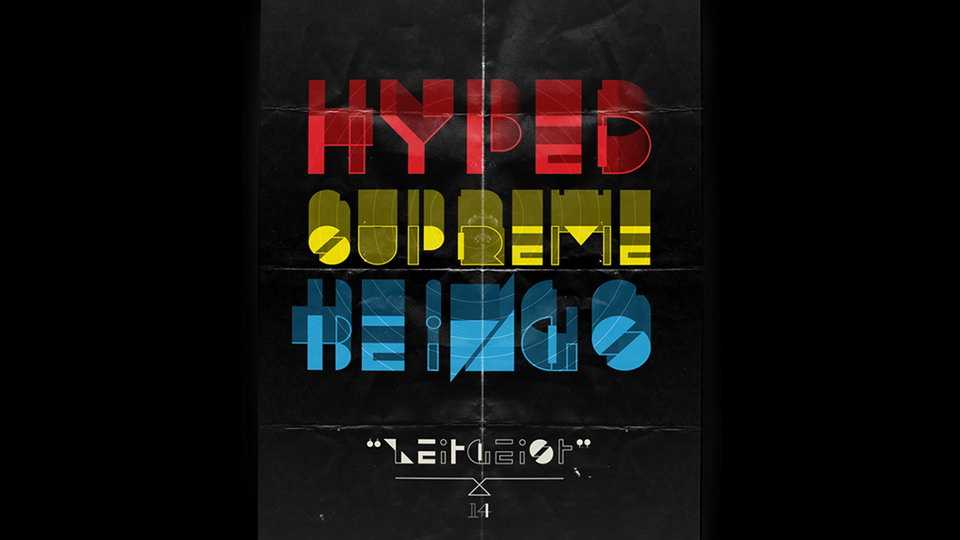
Download HYPED font, a unique geometric typeface originally designed as a typographic poster for an exhibition With its creative characters, it demands to be seen at large!